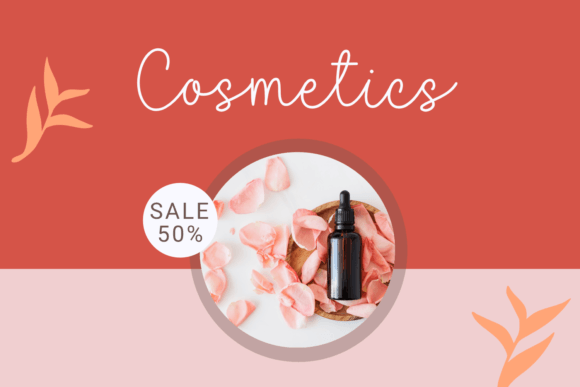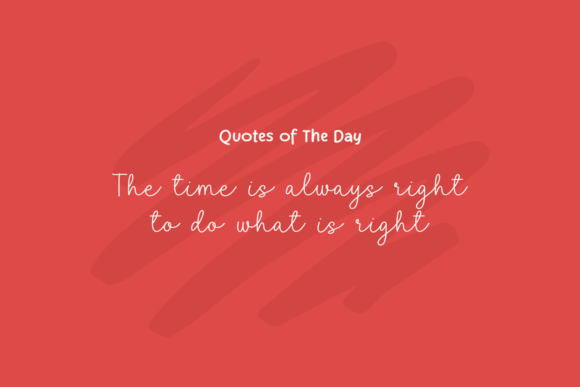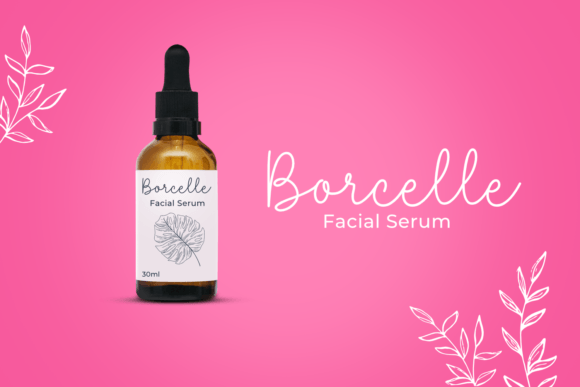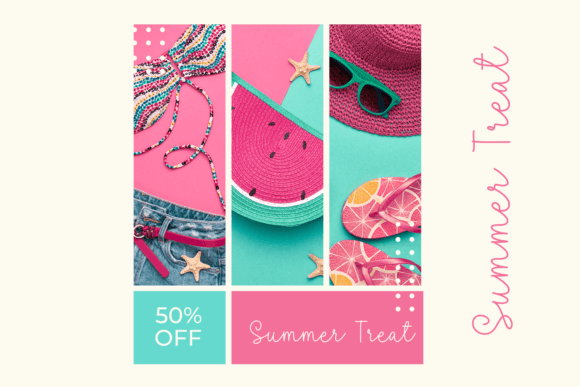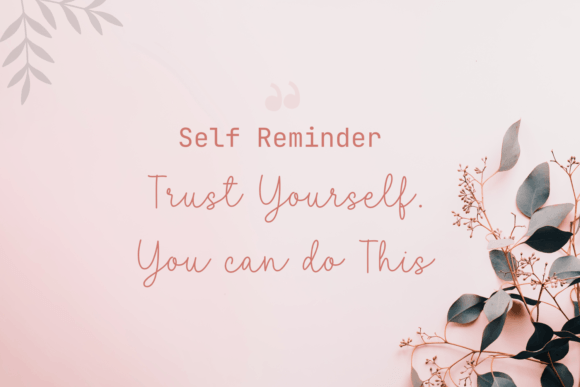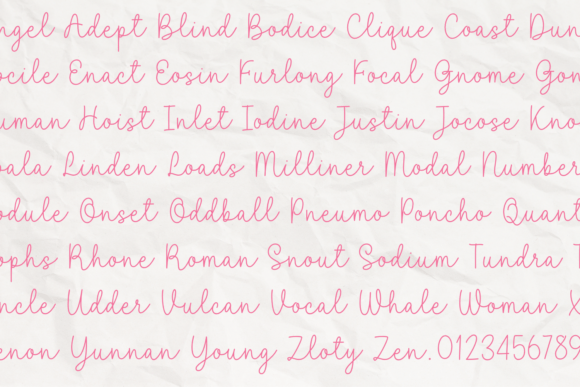
Introducing Gauntly Font: The Sweet and Delicious Handwritten Font with a Cool Vibe
Are you a designer or crafter looking for a font that can elevate your design ideas into a true piece of art? Look no further than Gauntly Font! This stunningly sweet and delicious handwritten font is here to revolutionize the way you approach your designs. With its cool vibe and unique charm, Gauntly Font is the perfect addition to any project.
What Makes Gauntly Font So Special?
Gauntly Font is a beautifully crafted handwritten font that boasts a distinctive and eye-catching style. Its sweet and delicious aesthetic is sure to capture the attention of your audience and leave a lasting impression. Whether you’re working on a branding project, a marketing campaign, or a personal craft, Gauntly Font is the perfect choice for adding a touch of personality and whimsy.
One of the standout features of Gauntly Font is its versatility. This font can be used for a wide range of design projects, from elegant and sophisticated to playful and fun. Its cool vibe makes it perfect for designs that require a bit of edge, while its sweet and delicious aesthetic ensures that it will always be approachable and engaging.
The Benefits of Using Gauntly Font
So why should you choose Gauntly Font for your next design project? Here are just a few of the benefits of using this amazing font:
- Unique and eye-catching style: Gauntly Font boasts a distinctive and stylish aesthetic that will set your designs apart from the crowd.
- Versatile and adaptable: This font can be used for a wide range of design projects, from elegant and sophisticated to playful and fun.
- Easy to read and understand: Despite its unique style, Gauntly Font is incredibly easy to read and understand, making it perfect for designs that require a clear and concise message.
- Perfect for branding and marketing: Gauntly Font is ideal for branding and marketing projects, as it can help to create a unique and memorable identity for your business or product.
How to Use Gauntly Font in Your Designs
Using Gauntly Font in your designs is incredibly easy. Here are a few tips to get you started:
- Pair it with bold graphics: Gauntly Font looks amazing when paired with bold and eye-catching graphics. Try combining it with bright colors and geometric shapes for a truly striking design.
- Use it for headings and titles: Gauntly Font is perfect for headings and titles, as its unique style and cool vibe make it perfect for grabbing the attention of your audience.
- Experiment with different colors: Gauntly Font looks amazing in a wide range of colors, from bright and bold to soft and pastel. Experiment with different colors to find the perfect look for your design.
In conclusion, Gauntly Font is a stunningly sweet and delicious handwritten font with a cool vibe that is sure to elevate your design ideas into a true piece of art. With its unique and eye-catching style, versatility, and ease of use, Gauntly Font is the perfect addition to any design project. Whether you’re a designer, crafter, or simply someone who loves to create, Gauntly Font is a must-have font that will help you to bring your designs to life.